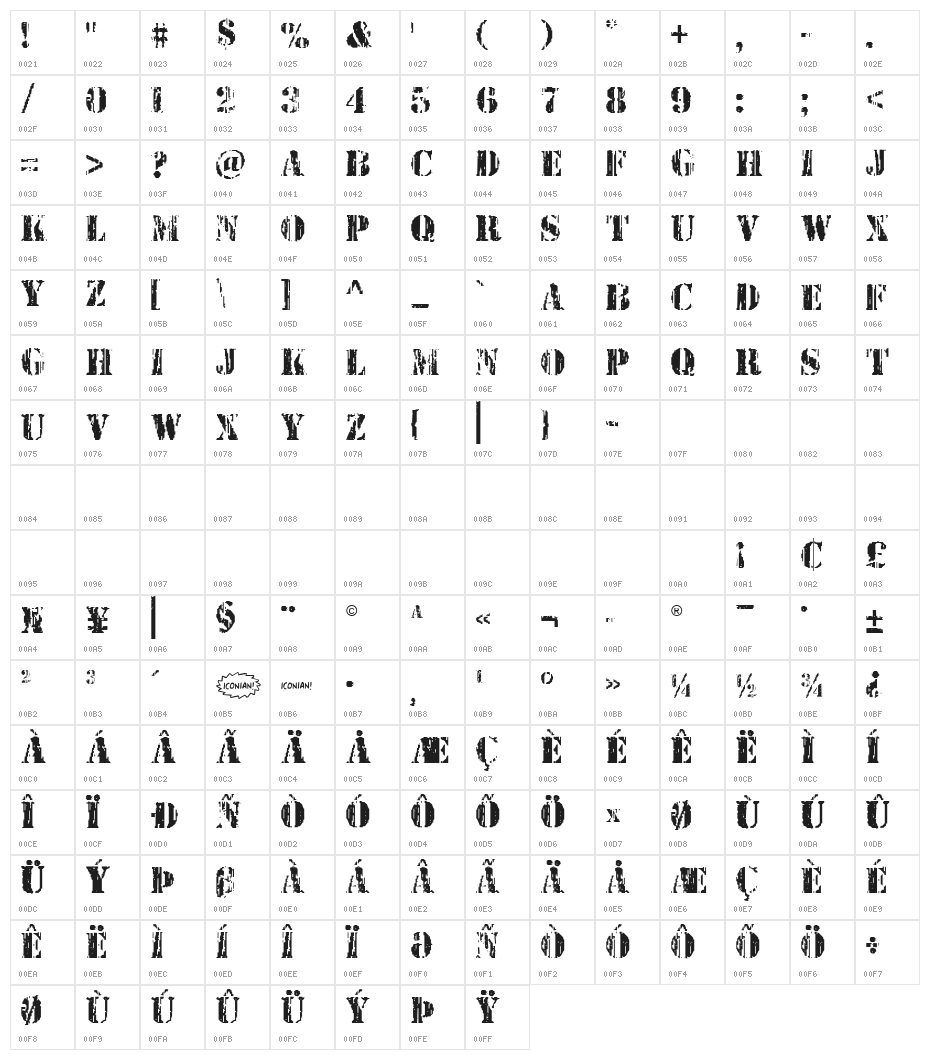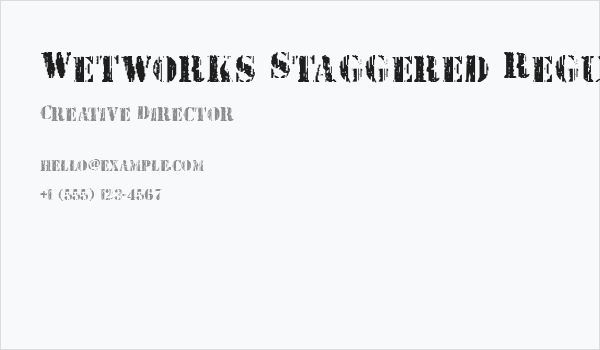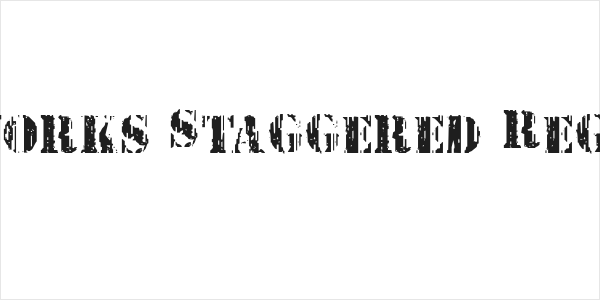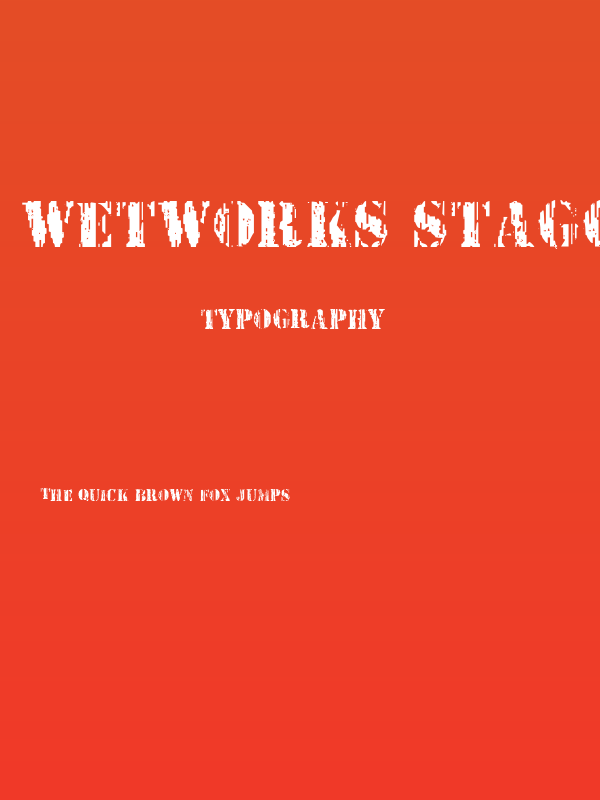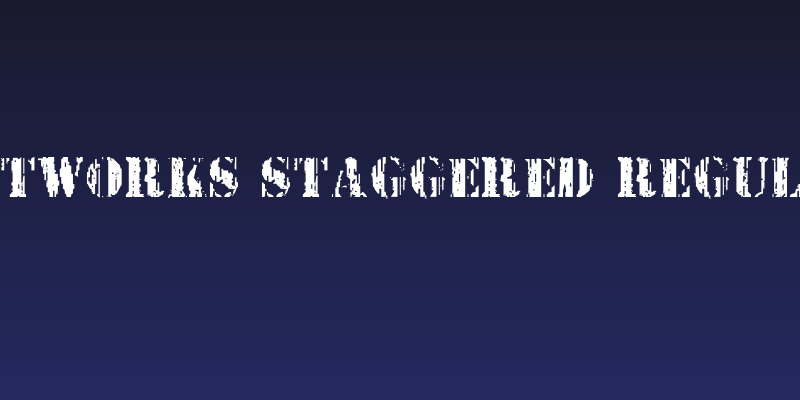
Wetworks Staggered Regular Font
Wetworks Staggered Regular Description
This font features a rugged, distressed appearance with a bold and impactful style. The characters are heavily textured, giving them a worn and weathered look, reminiscent of stenciled letters that have been exposed to the elements. The uppercase and lowercase letters maintain a consistent design, with sharp edges and a slightly staggered alignment that adds to the chaotic aesthetic. Numbers and special characters follow the same distressed pattern, ensuring uniformity across all glyphs. This font's unique style makes it stand out, ideal for projects that require a gritty, industrial feel.